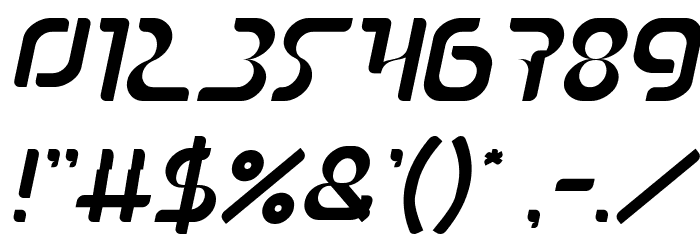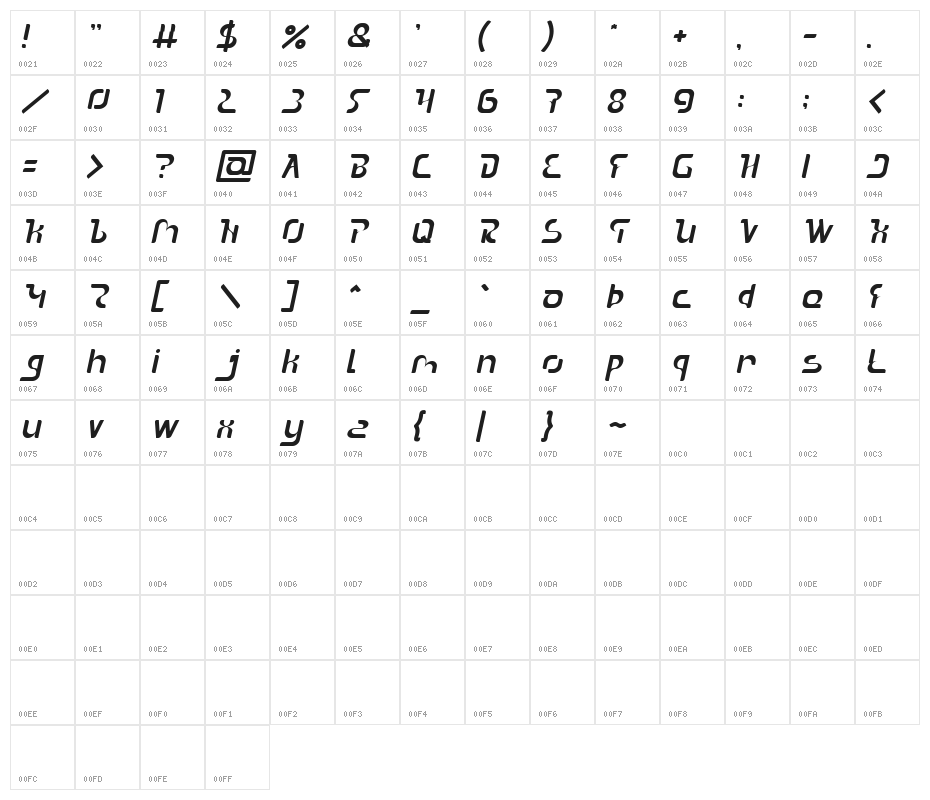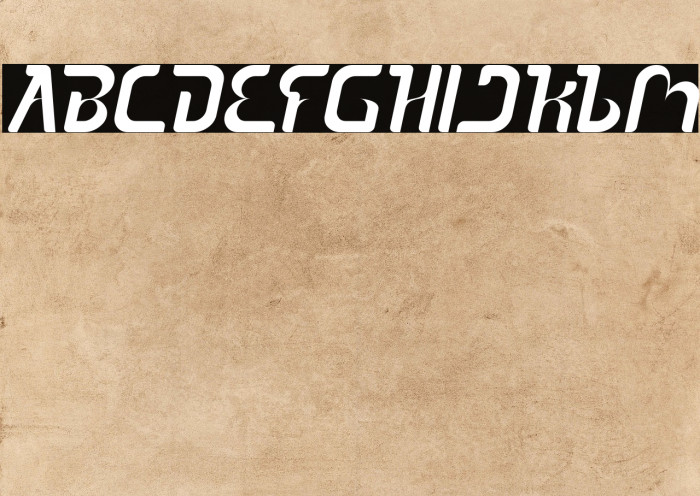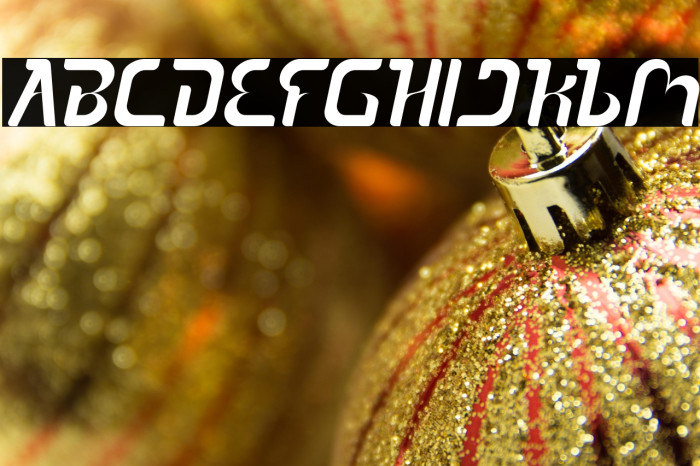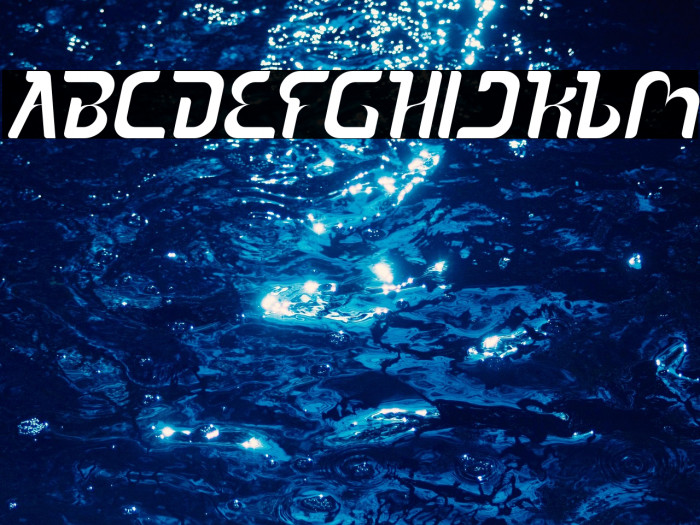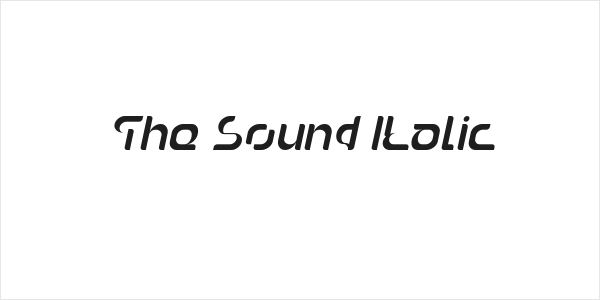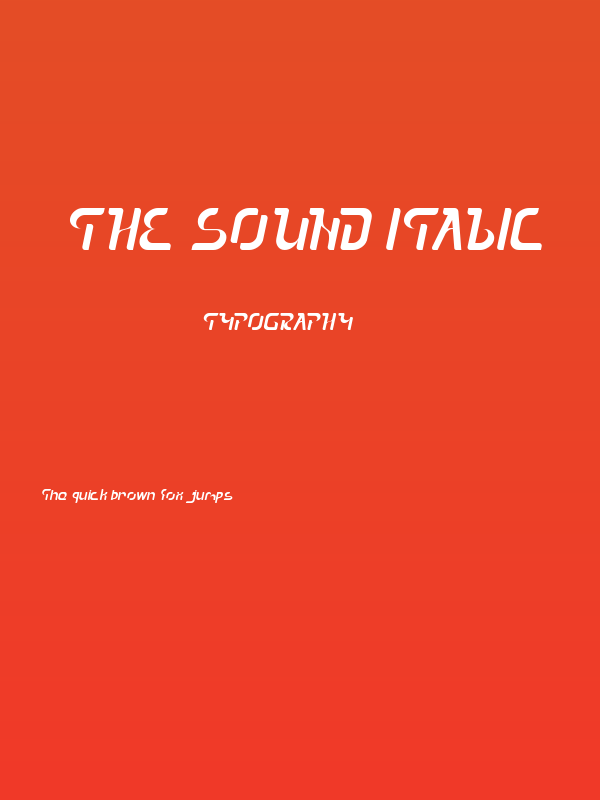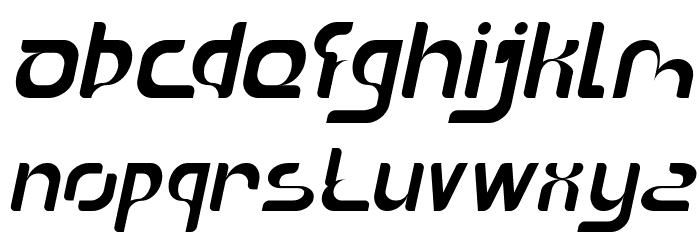
The Sound Italic Font
The Sound Italic Description
This font features a dynamic and modern italic style with a futuristic flair. The characters are slanted, giving a sense of motion and speed. The strokes are bold and consistent, with rounded edges that soften the overall appearance. The uppercase and lowercase letters maintain a uniform height, creating a cohesive look. The numbers and special characters are designed to match the sleek, contemporary aesthetic, making this font suitable for a variety of digital and print applications.
| Overall Style | Futuristic, Dynamic |